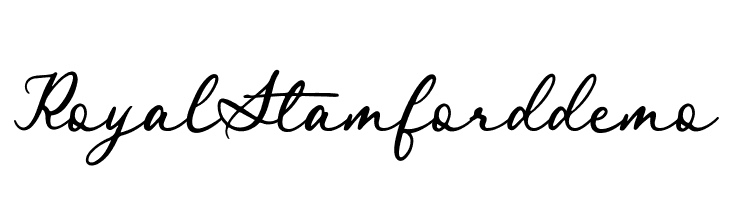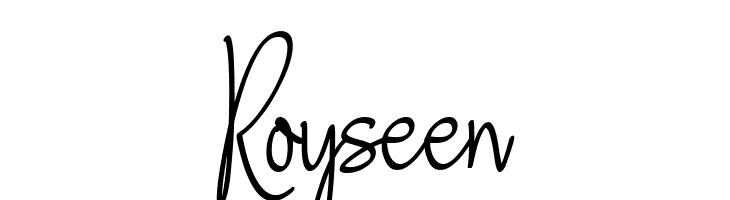
A flowing, cursive font with elegant loops and swirls.
A modern cursive font with elegant, flowing letters and smooth curves.
A playful and decorative font with elegant, dotted characters.
A playful, decorative font with bold strokes and dotted embellishments.
An elegant and flowing script font with ornate uppercase and smooth lowercase letters.
A bold, vintage-inspired font with sharp serifs and high contrast, perfect for striking headlines.
A bold, decorative font with gothic influences and sharp serifs.
An elegant, cursive font with fluid, connected strokes and a refined appearance.
An elegant, flowing script font with graceful curves and a sophisticated style.